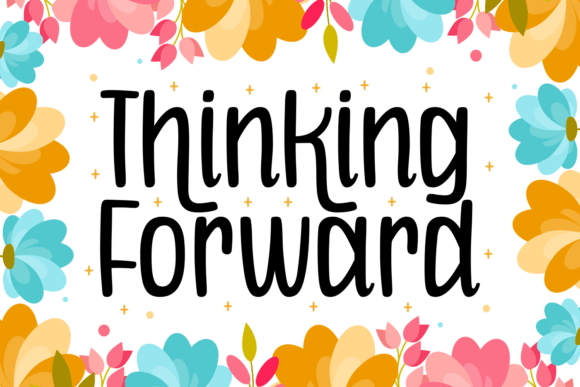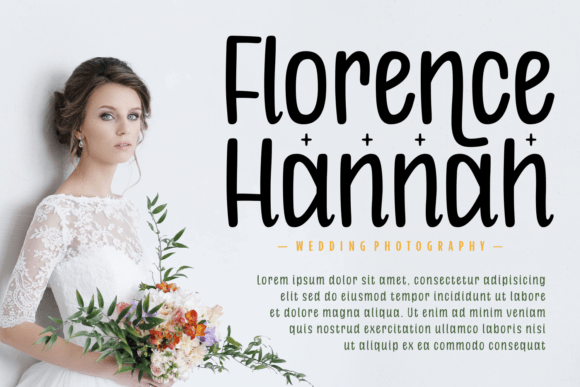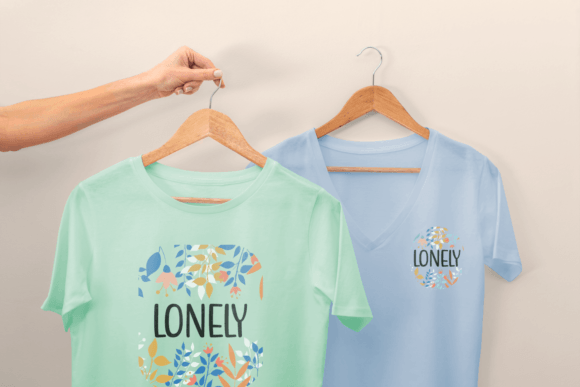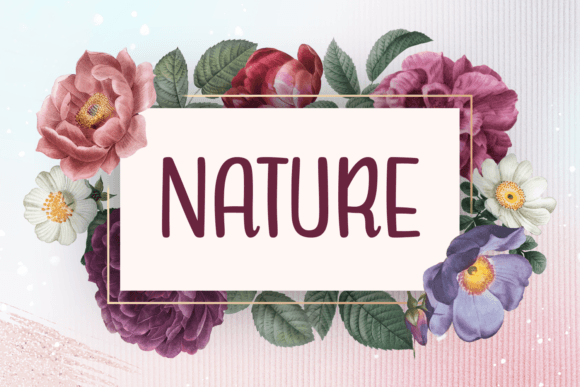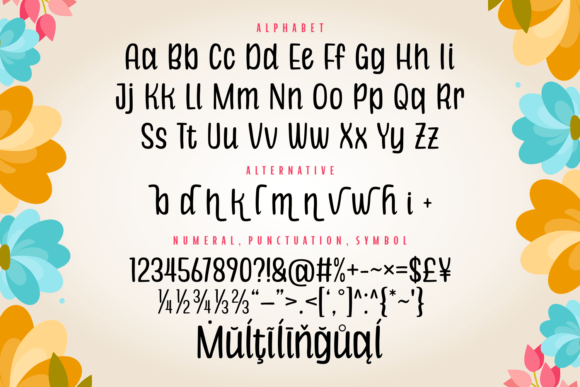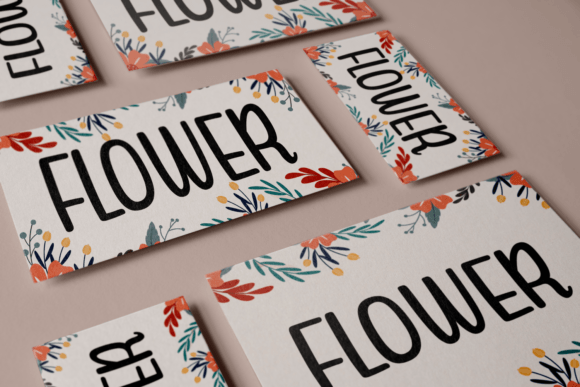
Playful Handwritten Display for Creative and Bold Designs
If you’re looking for a way to add energy and personality to your design work, the playful handwritten display font Thinking Forward is a perfect choice. With its bold letterforms and friendly curves, this font adds charm and confidence to everything from invitations to web designs.
Whether you’re designing for business, fun, or personal expression, Thinking Forward brings an eye-catching and expressive vibe to your projects.
Meet Thinking Forward: Bold, Expressive, and Fun
Thinking Forward combines the relaxed appeal of hand lettering with the readability of a clean display font. Each stroke has been carefully crafted to feel natural and dynamic, which makes it stand out in a wide variety of contexts. From digital to print, it’s a font that truly shines.
This playful handwritten display is great for:
Greeting cards and party invitations
Product packaging and custom labels
Social media graphics and banners
Blog headers and branding kits
Printables and digital downloads
YouTube thumbnails and poster designs
It’s the perfect blend of cheerful and bold — great for getting your message across in style.
Why Designers Love Thinking Forward
There are many reasons why designers gravitate toward Thinking Forward. Here’s what makes it so popular:
Energetic and bold handwritten aesthetic
Readable across various sizes and platforms
Perfect for both personal and professional projects
This playful handwritten display font delivers high visual impact while remaining approachable and fun.
Perfect for Creators, Entrepreneurs, and Crafters
Thinking Forward fits well into the workflows of designers, makers, and content creators. Its fun character makes it ideal for:
Branding and packaging for small businesses
Etsy shops and downloadable template sellers
Kids’ products, crafts, and DIY materials
Motivational quote designs and wall art
Wedding or event stationery with flair
Its balance of personality and polish makes it a valuable tool for anyone looking to enhance their typography game.
Thinking Forward is more than just a font — it’s a bold statement. With its playful handwritten display style, it adds a burst of character to any design. Whether you’re creating for clients or just for fun, this font will bring your ideas to life with joy and creativity.